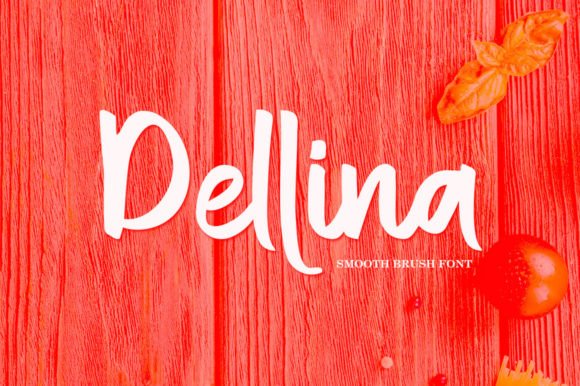
The Perfect Blend of Style and Confidence: Introducing Dellina Font
Remember that moment when you’re working on a design project, and you’re just about to hit publish, but something’s missing? You need that extra oomph, that special something to make your creation stand out from the crowd. For designers like you, finding the perfect font can be a game-changer.
Enter Dellina Font, a cool, brushed, and trendy handwritten font that’s sure to add a touch of sophistication and style to your designs. This font reads as strong, confident, and dynamic, making it perfect for projects that require a bold statement. Whether you’re working on a logo, a branding campaign, or a social media post, Dellina Font is the perfect addition to elevate your design.
With Dellina Font, you’ll be able to add tons of stylish character to your designs, making it a valuable asset for any designer looking to take their work to the next level. Its versatility and unique charm make it a must-have for anyone looking to add a personal touch to their designs.
Dellina Font Key Features
- Font Family: Dellina Font
- Unique Characteristics: Dellina Font features a unique, elegant script design with 800 glyphs, including international characters and diacritics
Dellina Font Review
I recently had the chance to work with the Dellina Font, and I must say, it’s an interesting addition to any designer’s toolkit. ✨ One of the things that stands out about Dellina is its unique, hand-painted feel. The font’s intricate details and flourishes give it a touch of elegance that’s hard to find in more traditional fonts.
Another strength of the Dellina Font is its versatility. ✨ It’s suitable for a wide range of applications, from invitations and greeting cards to branding and packaging. The font’s playful, whimsical nature makes it a great choice for designers looking to add some personality to their work.
- Unique, hand-painted feel
- Highly versatile and suitable for various applications
- Elegant and playful at the same time
- ⚠️ Limited legibility in certain font sizes
- ⚠️ May not be suitable for large blocks of text
- ⚠️ Requires careful kerning to maintain even spacing
Overall, the Dellina Font is a solid choice for designers looking to add some visual interest to their work. While it may have some limitations, its unique feel and versatility make it a great addition to any font collection.
Dellina Font is ideal for creating elegant and sophisticated designs, such as wedding invitations, luxury branding materials, and high-end packaging. It’s also suitable for use in editorial and publishing contexts, where a refined and classic font is desired.